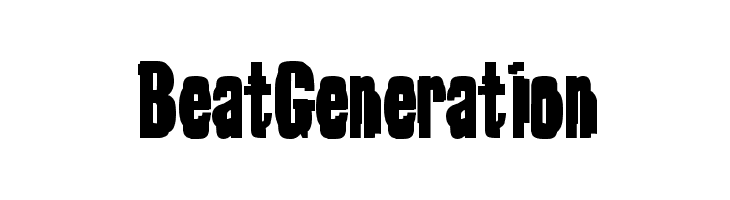
Bold, shadowed font with a vintage, three-dimensional look.
A bold, shadowed font with strong serifs and a three-dimensional effect.
A bold, classic serif font with strong, authoritative strokes.
A bold, distressed font with a grunge aesthetic.
A bold, modern font with sharp angles and high contrast strokes.
A bold, impactful font with thick strokes and tight spacing.